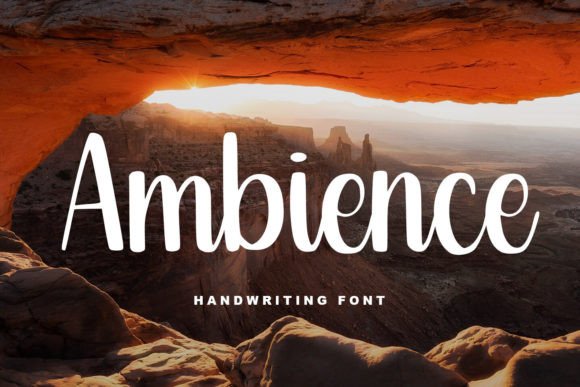
The Ambience Font: A Stylish and Delicate Script Font for Your Design Needs
I’ll never forget the moment I stumbled upon the Ambience font. I was working on a project for a client who wanted a elegant and sophisticated look, but I was struggling to find the right font to match their brand’s personality. That’s when I discovered Ambience – a stylish and delicate script font that instantly caught my attention. With its clean, thin, and smooth vibe, I knew it was the perfect fit for the project.
An Honest Review of Ambience Font
What I Love About Ambience Font
- ✨ Elegant and sophisticated look that’s perfect for high-end designs
- ✅ Clean and thin lines that make it easy to read
- 💫 Smooth and flowing script that’s perfect for titles and headings
- 🎨 Highly versatile and can be used for a variety of design projects, from branding to packaging
While Ambience font is an excellent choice for many design projects, there are a few quirks to be aware of:
- ⚠️ The font may not be suitable for body text due to its thin lines and script style
- 🤔 Some characters may not be suitable for use at very small sizes
The Designer Inspiration Behind Ambience Font
The Ambience font was designed with the goal of creating a elegant and sophisticated script font that’s perfect for high-end designs. The designer wanted to create a font that would evoke a sense of luxury and refinement, while still being clean and easy to read. The result is a beautiful and versatile font that’s perfect for a variety of design projects.
Q: What is the Ambience font?
A: The Ambience font is a stylish and delicate script font that’s perfect for high-end designs. It has a clean, thin, and smooth vibe that’s ideal for titles and headings.
Q: Is Ambience font suitable for body text?
A: While Ambience font is beautiful and elegant, it may not be the best choice for body text due to its thin lines and script style. It’s better suited for titles and headings.